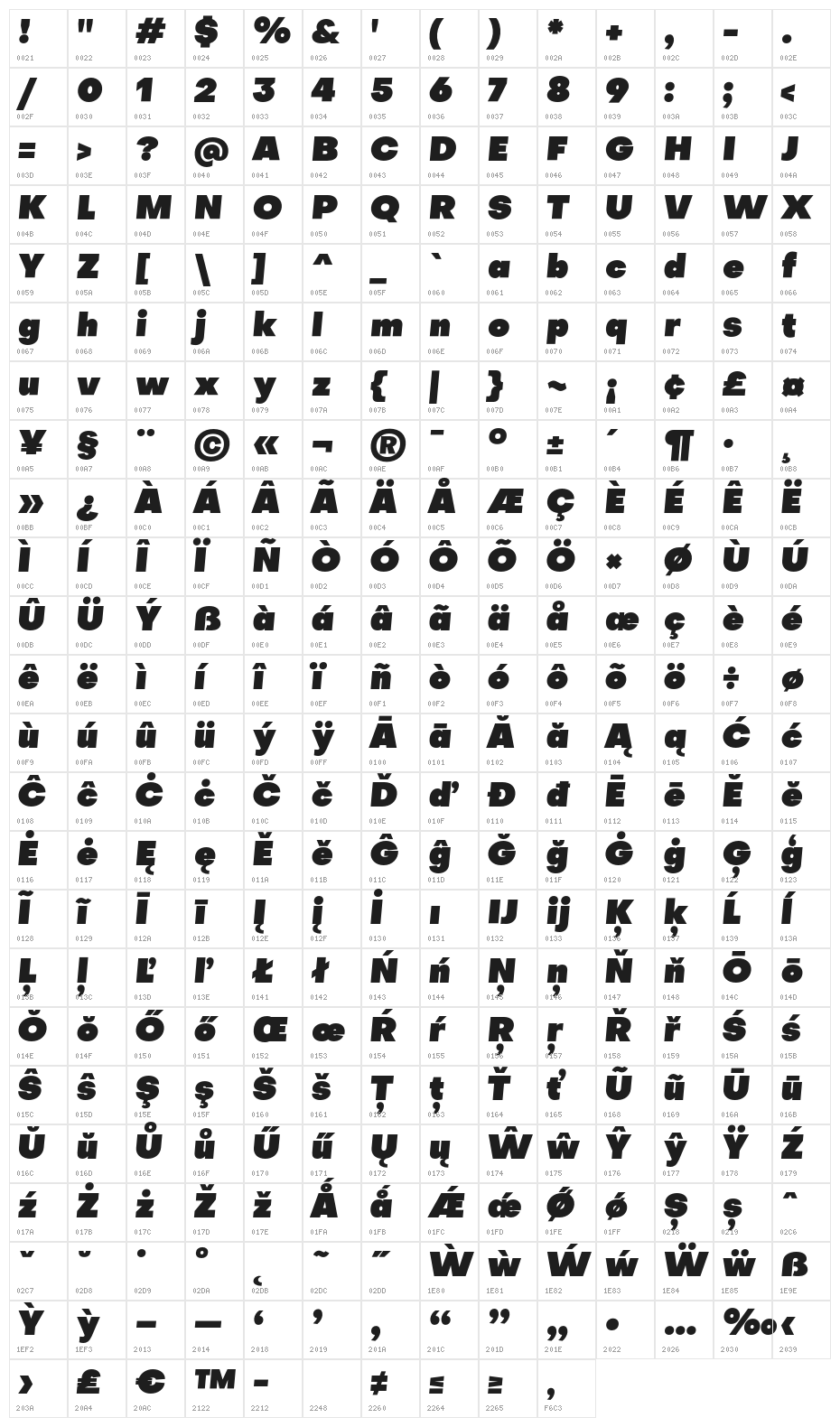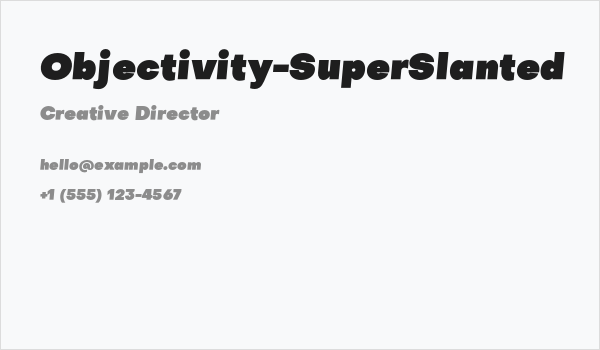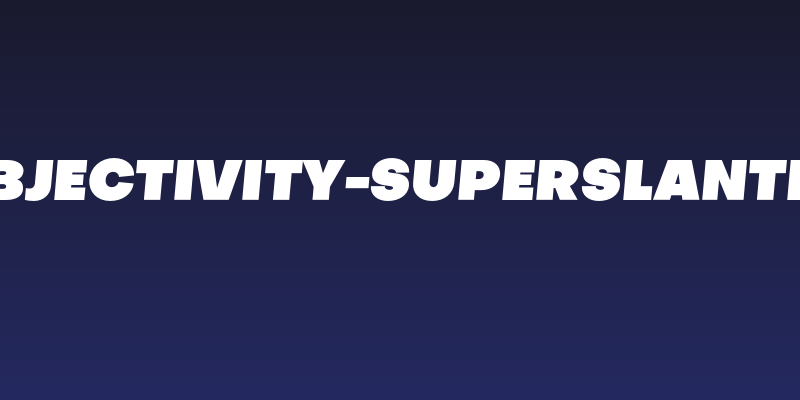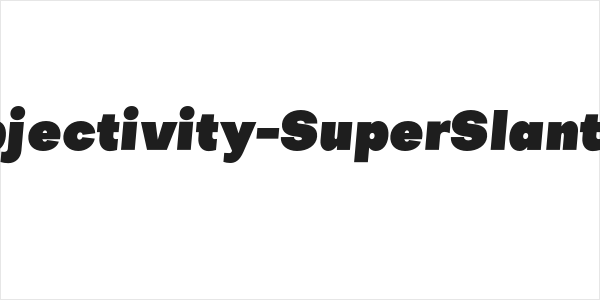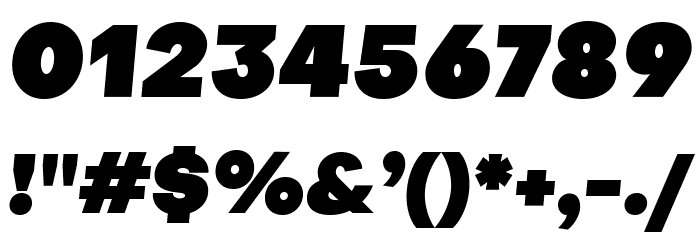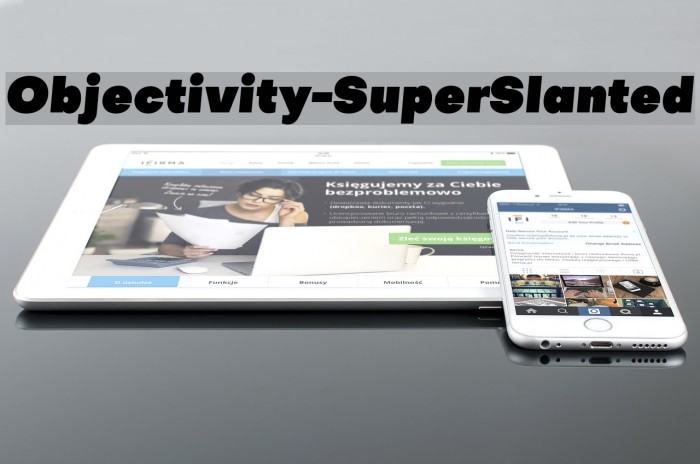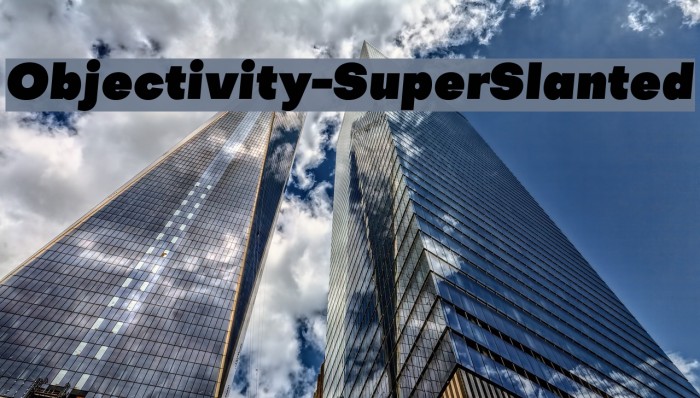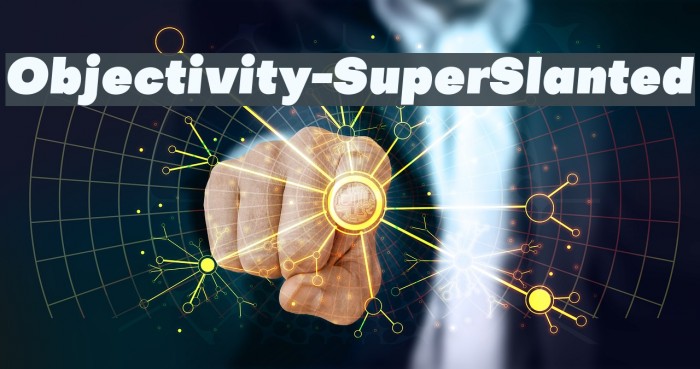
Objectivity-SuperSlanted Font
Objectivity-SuperSlanted Description
This font exhibits a bold and dynamic style with a pronounced slant, giving it a sense of movement and energy. The characters are thick and robust, making them highly visible and impactful. The uppercase and lowercase letters maintain a consistent weight, contributing to a cohesive appearance. The numerals are equally bold, ensuring they stand out in any context. Special characters are designed with the same attention to detail, providing a comprehensive set for diverse applications. The overall design is modern and assertive, suitable for projects that require a strong visual presence.
| Use Case | Headlines, Logos, Advertising |
| Proposed Projects | Ideal for branding, advertising, headlines, and any project that requires a strong, impactful typeface. |